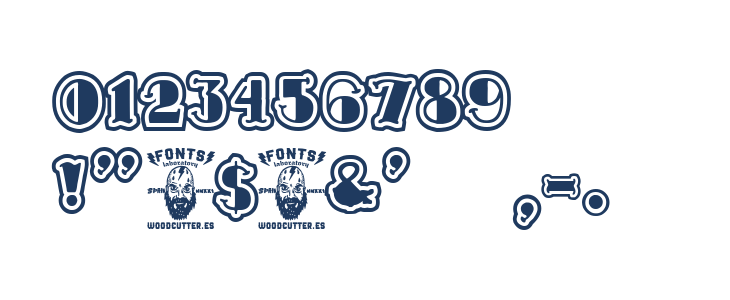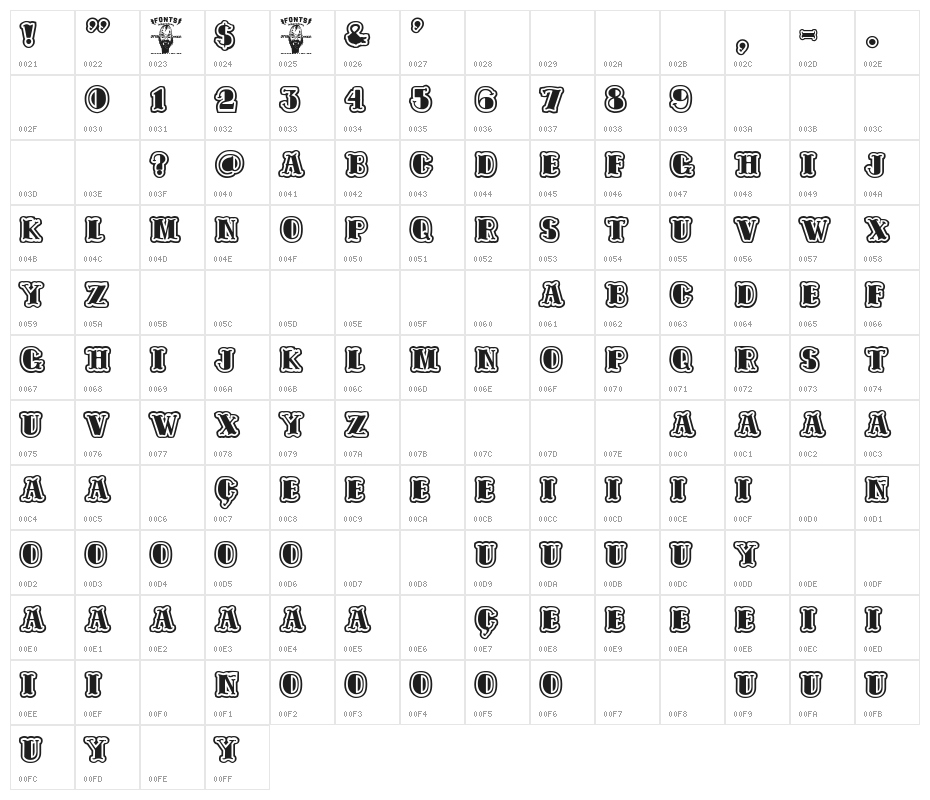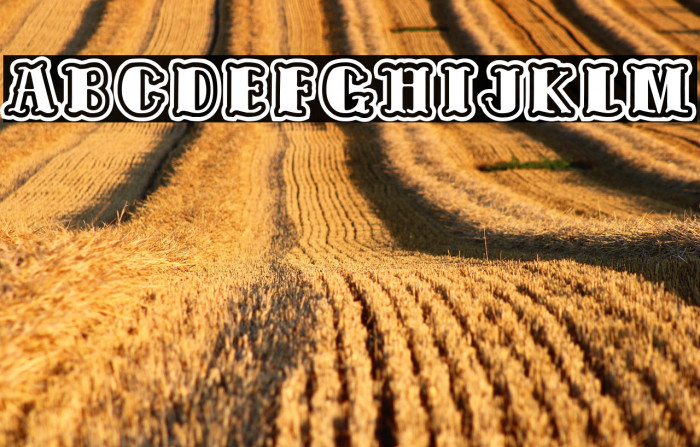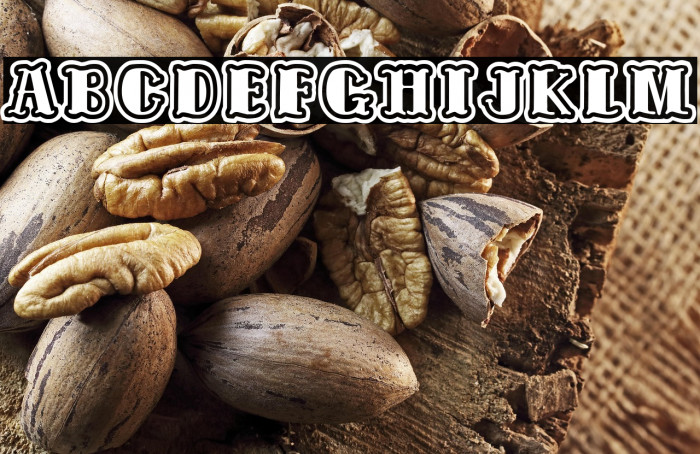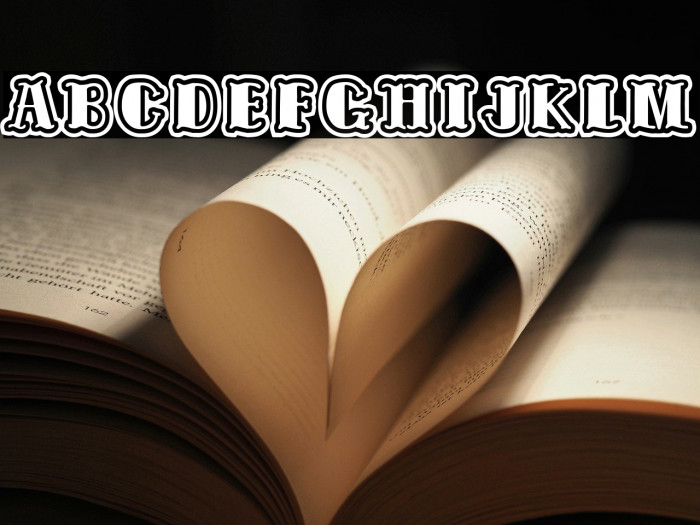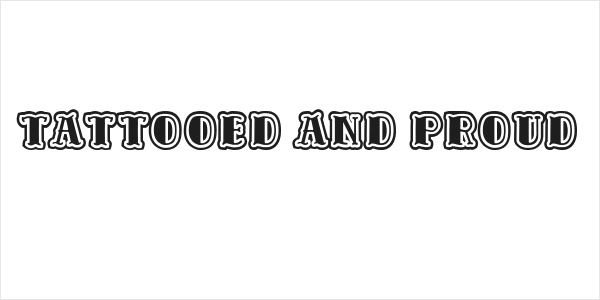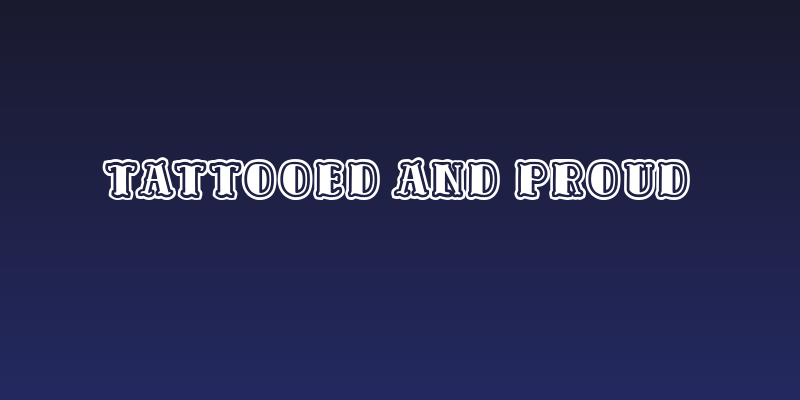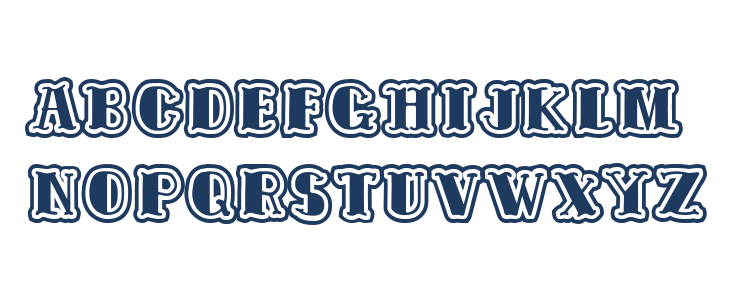
Tattooed and Proud Font
Tattooed and Proud Description
This font features a bold, decorative style with a strong outline that gives each character a striking presence. The uppercase and lowercase letters are designed with a consistent thickness, creating a uniform look across the alphabet. The numbers and special characters maintain this bold aesthetic, ensuring a cohesive appearance. The font's design is reminiscent of tattoo art, with a flair that suggests a sense of pride and individuality. Its unique style makes it ideal for projects that require a standout, artistic touch.
| Proposed Projects | Ideal for tattoo designs, posters, logos, and any project requiring a bold, artistic statement. |